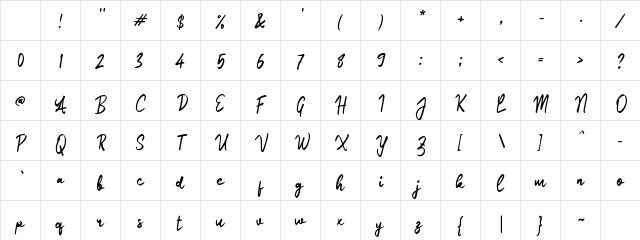
Complete Olalia Signature Regular glyph index. Displaying only characters natively supported by Olalia Signature Regular font.
Olalia Signature is a composed and adaptable typeface that performs quietly and consistently across a wide range of design contexts.